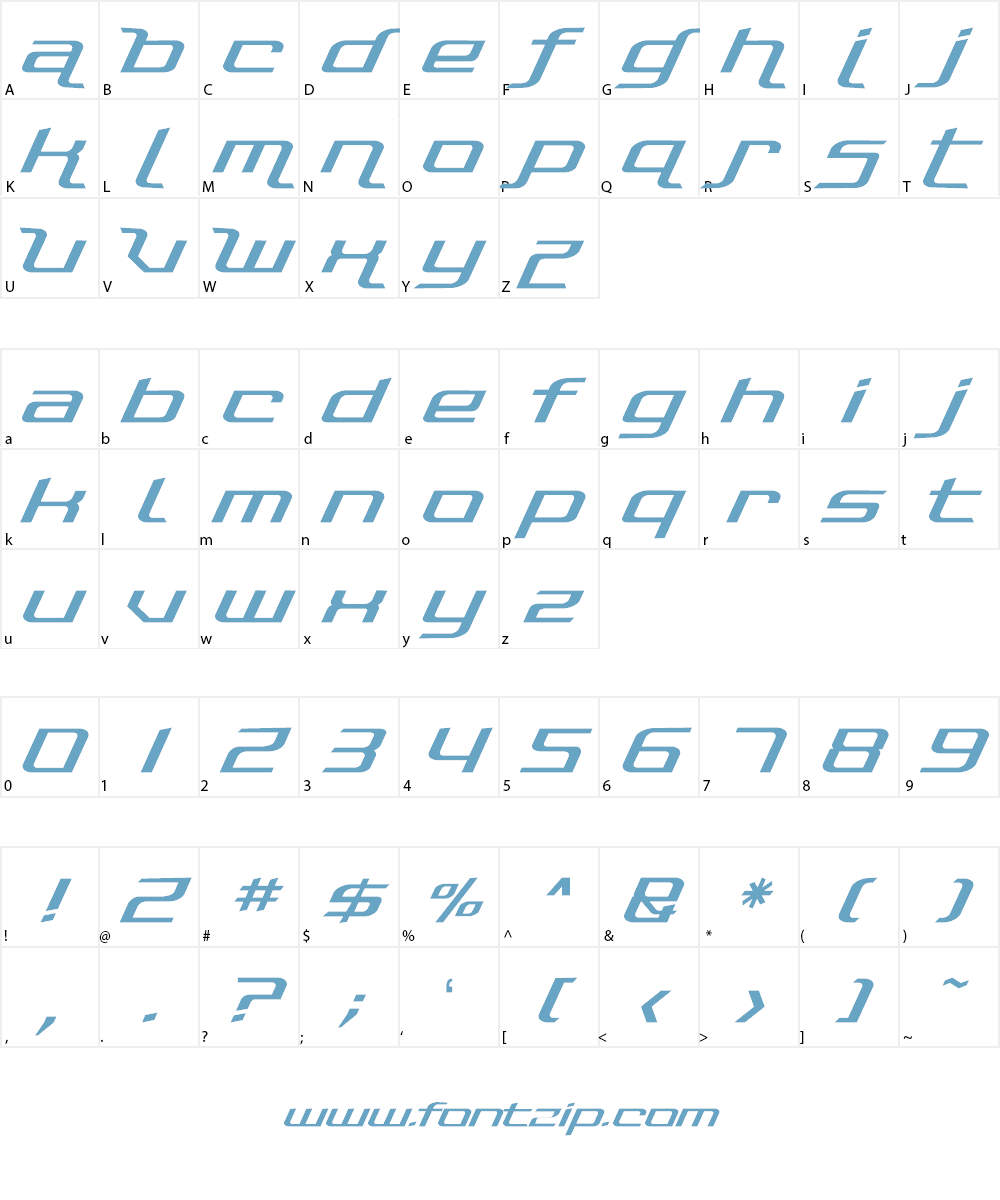
Based on Malaysia's national car logotype, it started out by taking pictures of other people's car and then tracing the word "proton". Then the other alphabets are created based on those initial characters. It took me quite a bit to finish both versions, particularly when adjusting substantially large number of kerning pairs.